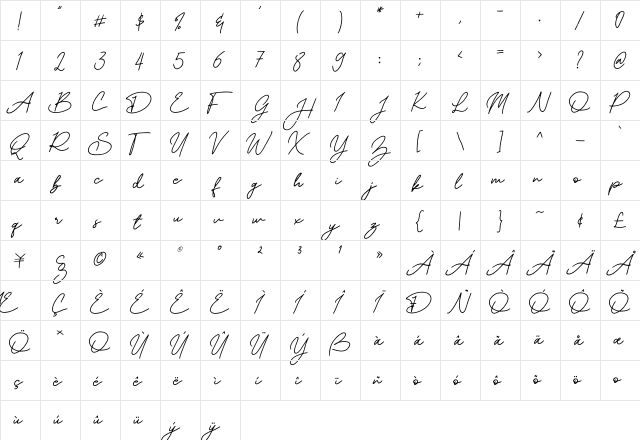
Mereoleona Script Script
| Style | Script |
| Designer | Muhammad ZD Prayogo |
Design Context for Mereoleona Script Typeface
Mereoleona Script flows with the natural rhythm of handwritten lettering, making it ideal for designs that call for warmth and personal expression.